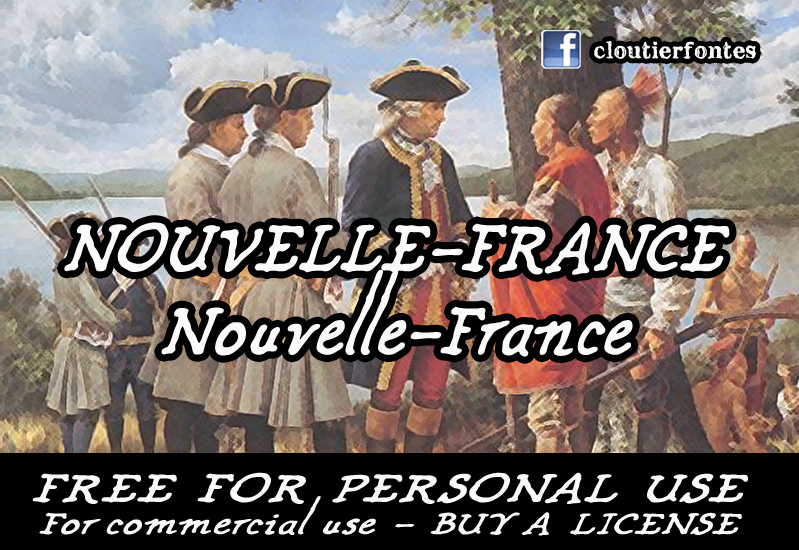
CF Nouvelle France by CloutierFontes is a free handwritten font with broad, rolling letterforms and a lively inked edge. Stroke widths shift abruptly, and the uneven joins make the lettering resemble a quick sign-painter's sketch rather than a polished formal hand.
Its vintage tavern-sign character suits pub menus, craft beverage packaging, and folk festival posters. It also has the loose theatrical quality needed for roots-music album covers. Informal pub and neighborhood restaurant branding is clearly its most convincing home.
CF Nouvelle France
CloutierFontes
Steve Cloutier
CF Nouvelle France Regular is a font by CloutierFontes, designed by Steve Cloutier in 2013.